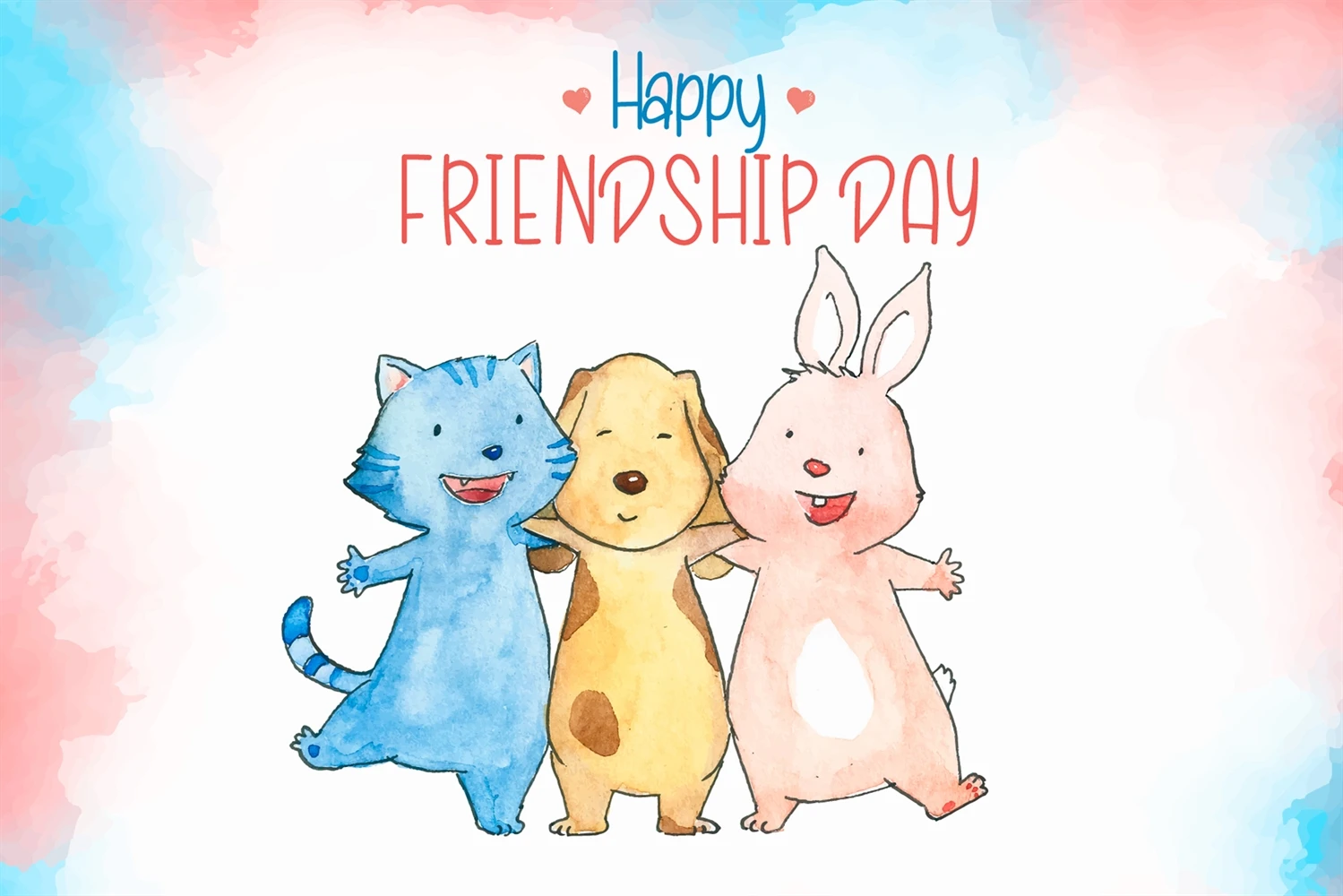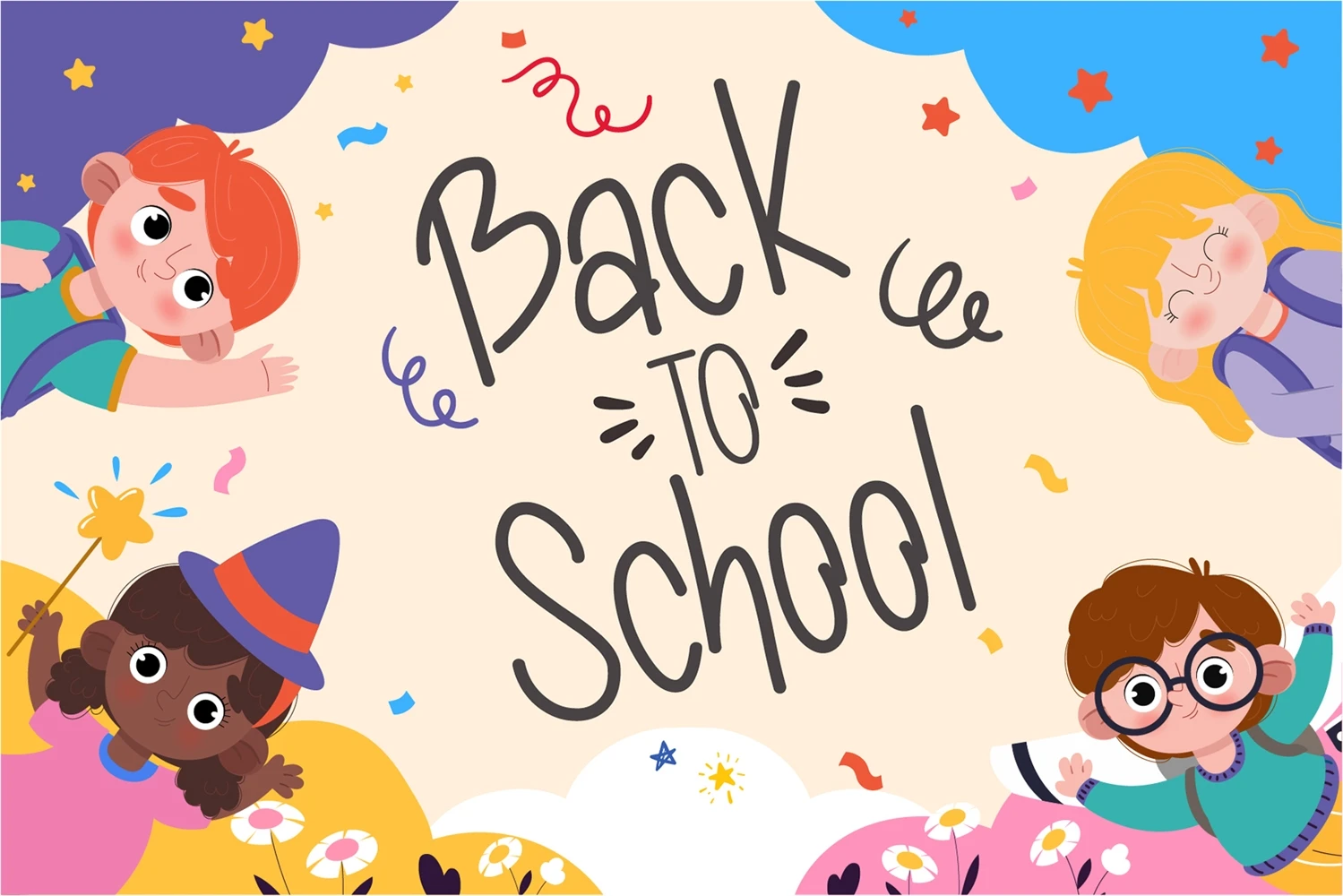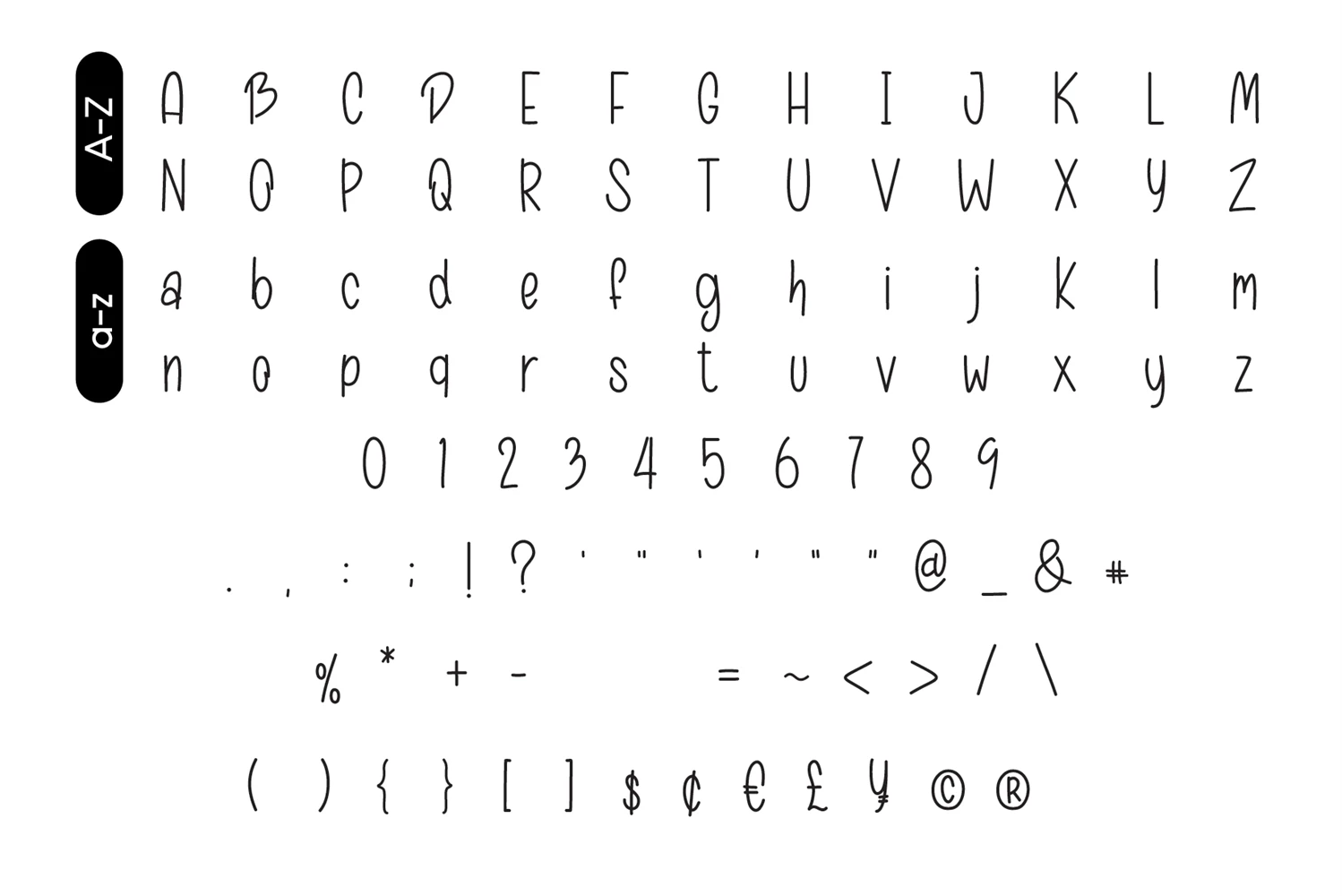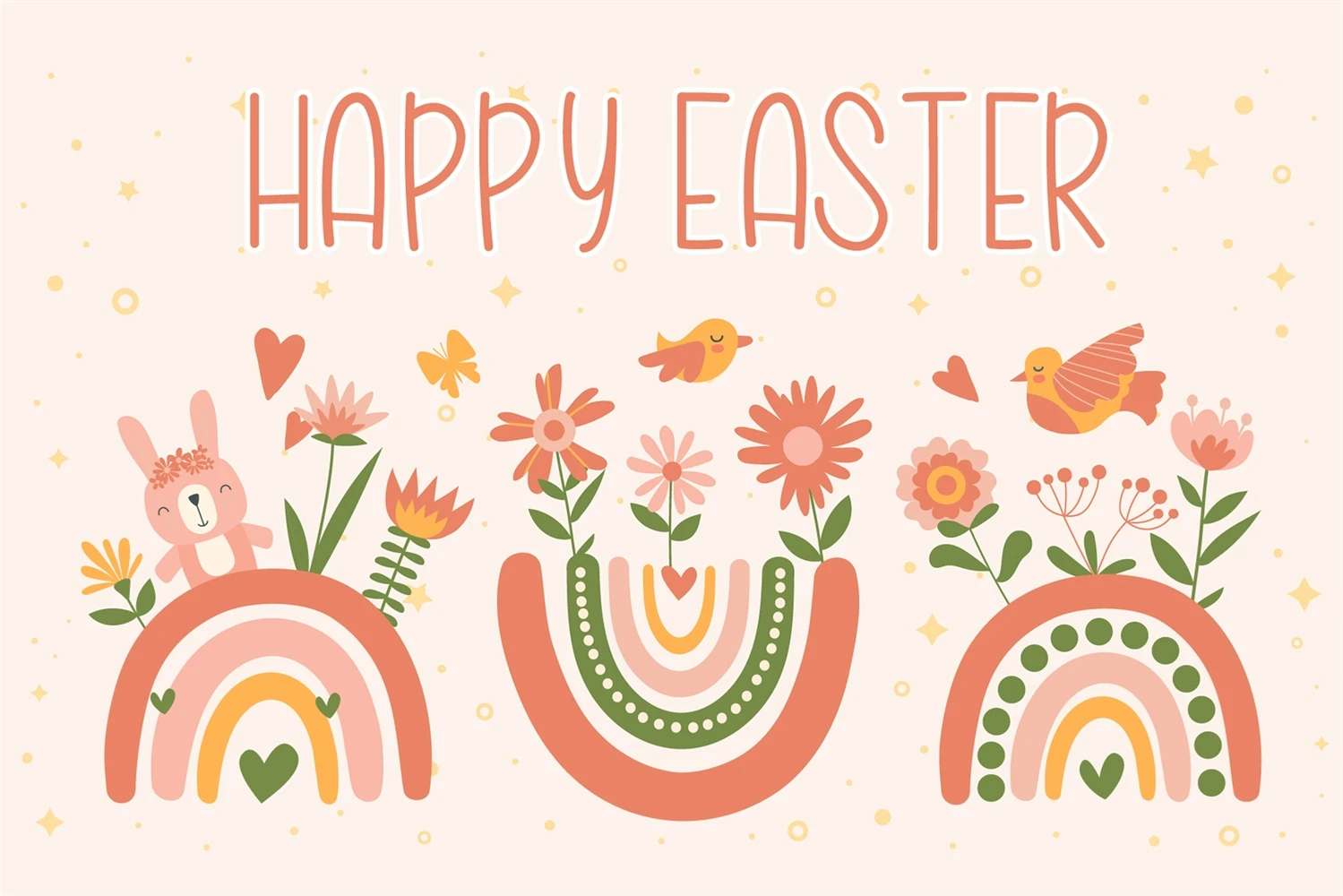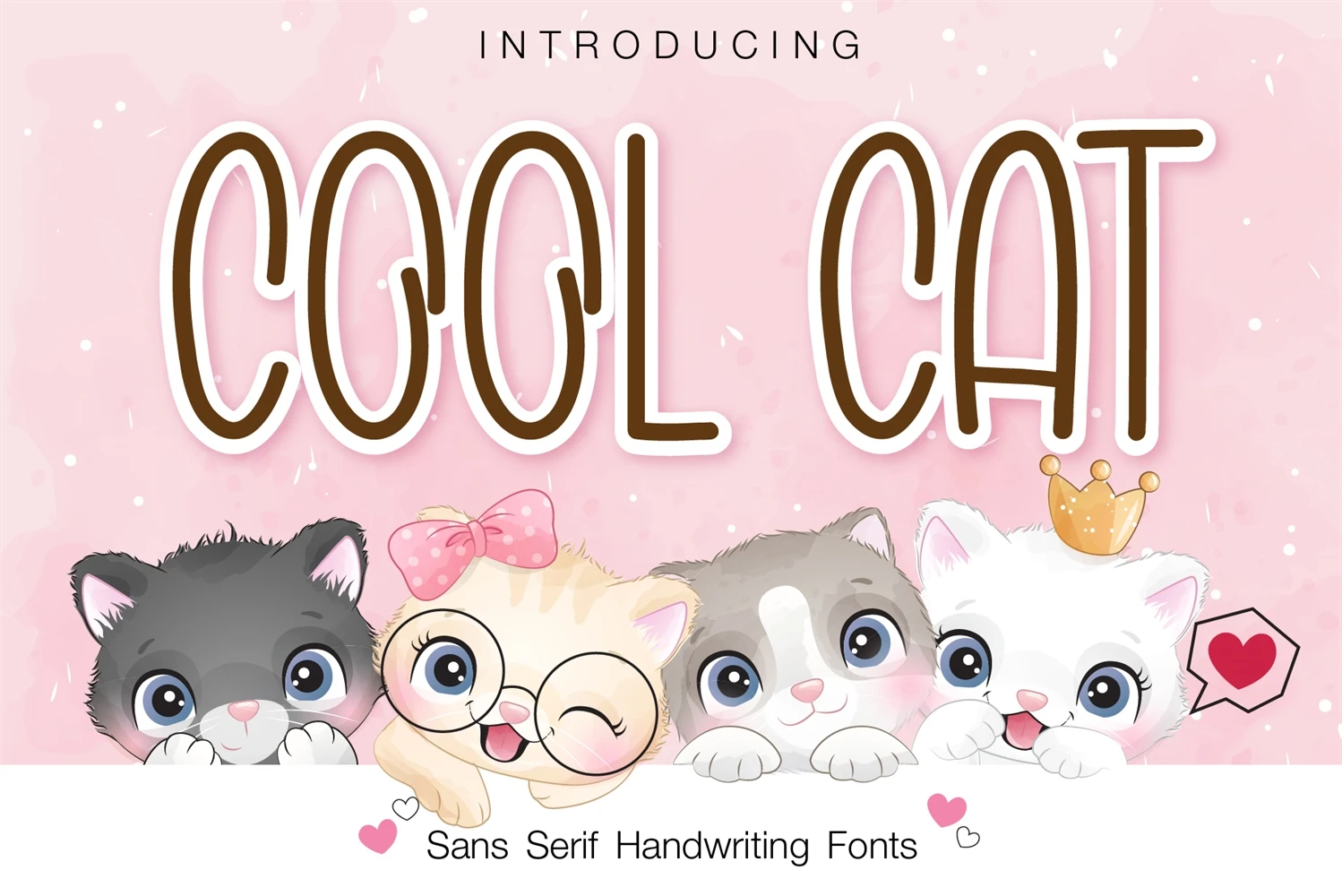
Cool Cat is a fun and comfortable sans serif font that is easy to read. You can use it for various projects, such as blog posts, logos, branding, ads, invitations, greeting cards, planners, photo albums, decorations, and much more. Add it to any of your designs, and enjoy the results! Includes